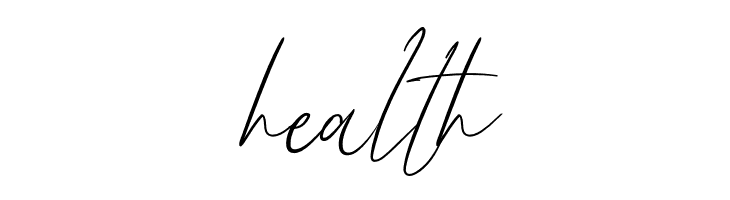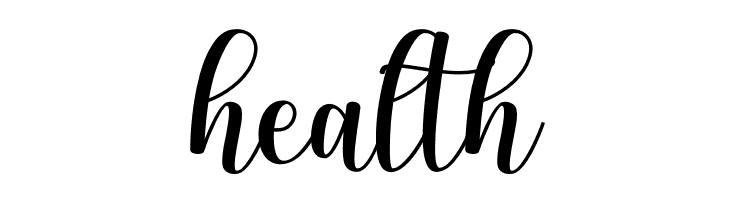
• Bellami
A playful and elegant script font with decorative swashes and flourishes.
• Bellamona
A lively, flowing script font with an elegant handwritten style.
• Bellamona
A lively and flowing script font with elegant curves and a personal touch.
• Bellamosley Demo
A lively, flowing script font with elegant cursive letterforms.
• Bellamy Signature
An elegant, cursive font with fluid, interconnected strokes.
• Bellamy Signature
A graceful, cursive script font with a handwritten signature style.
• Bellandha
A lively and expressive handwritten font with fluid, varied strokes.
• BellandLambPersonalUse
A playful and bold font with rounded, slightly irregular letterforms.
• BellanesiaDemoRegular
A fluid and elegant handwritten script with dynamic movement.
• bellania
A graceful and elegant script font with flowing cursive letters.